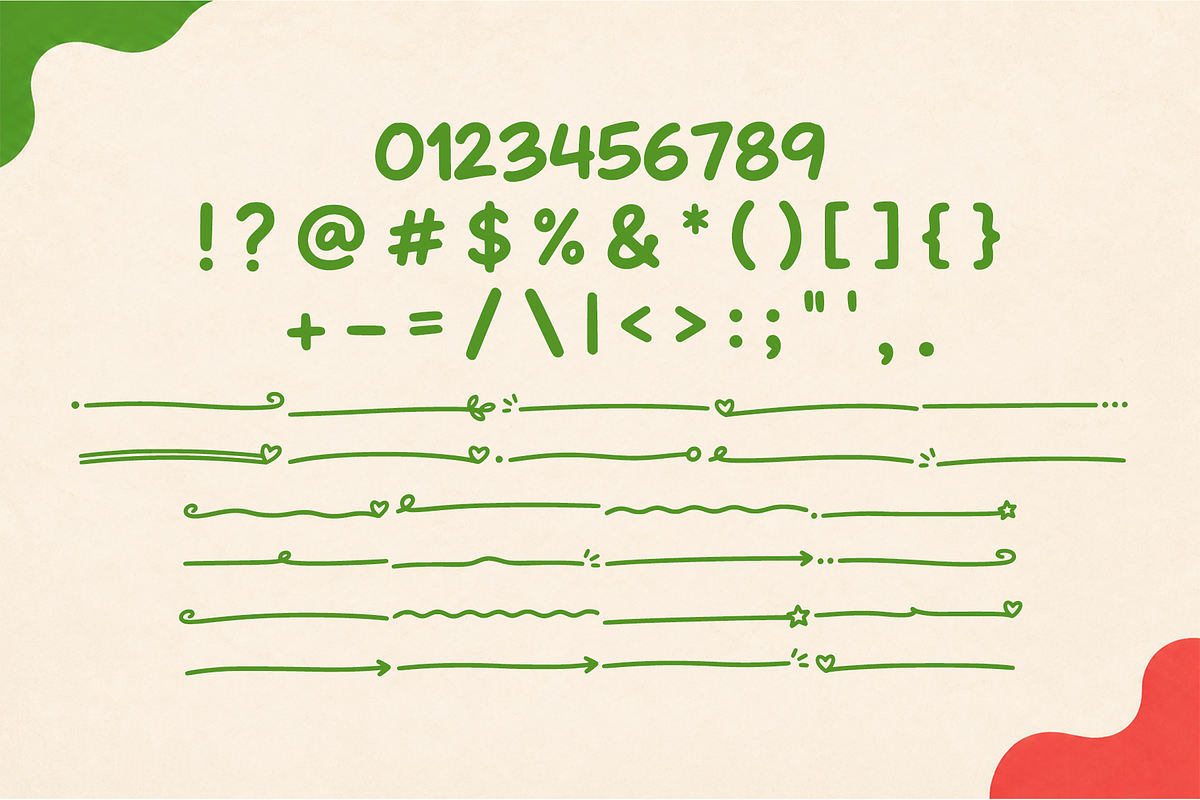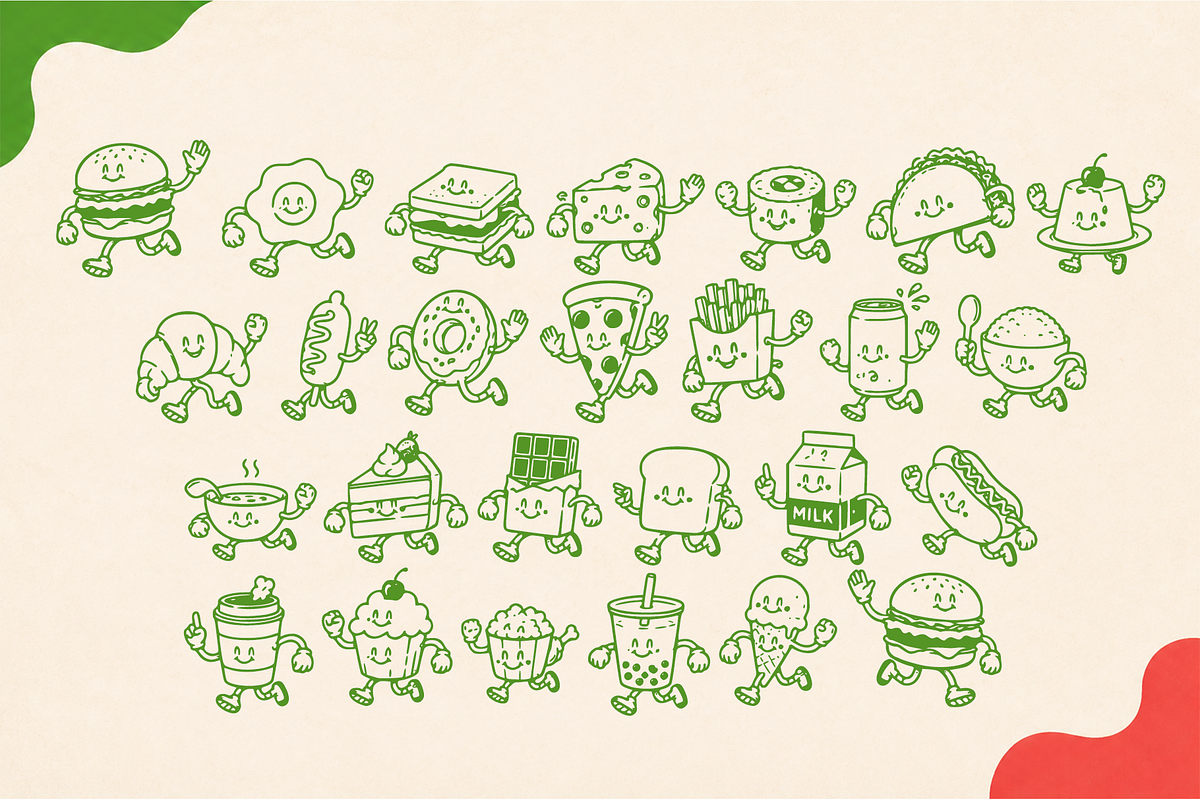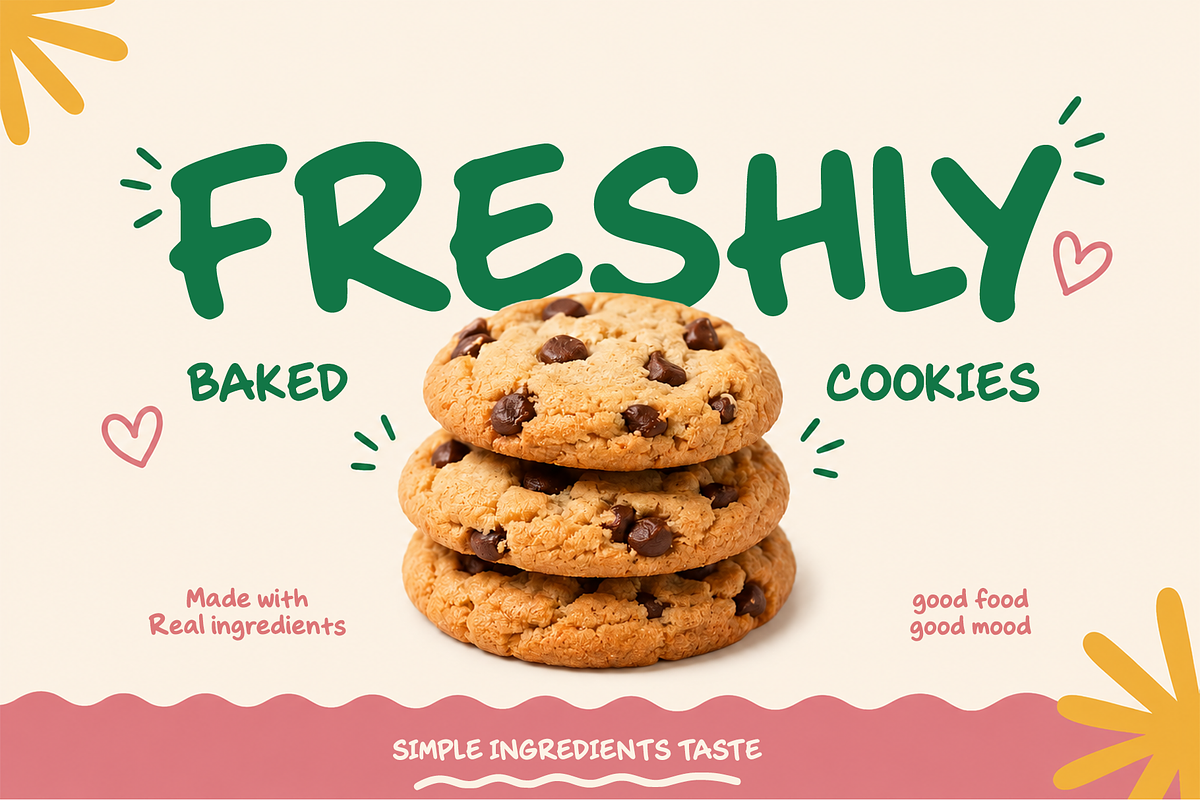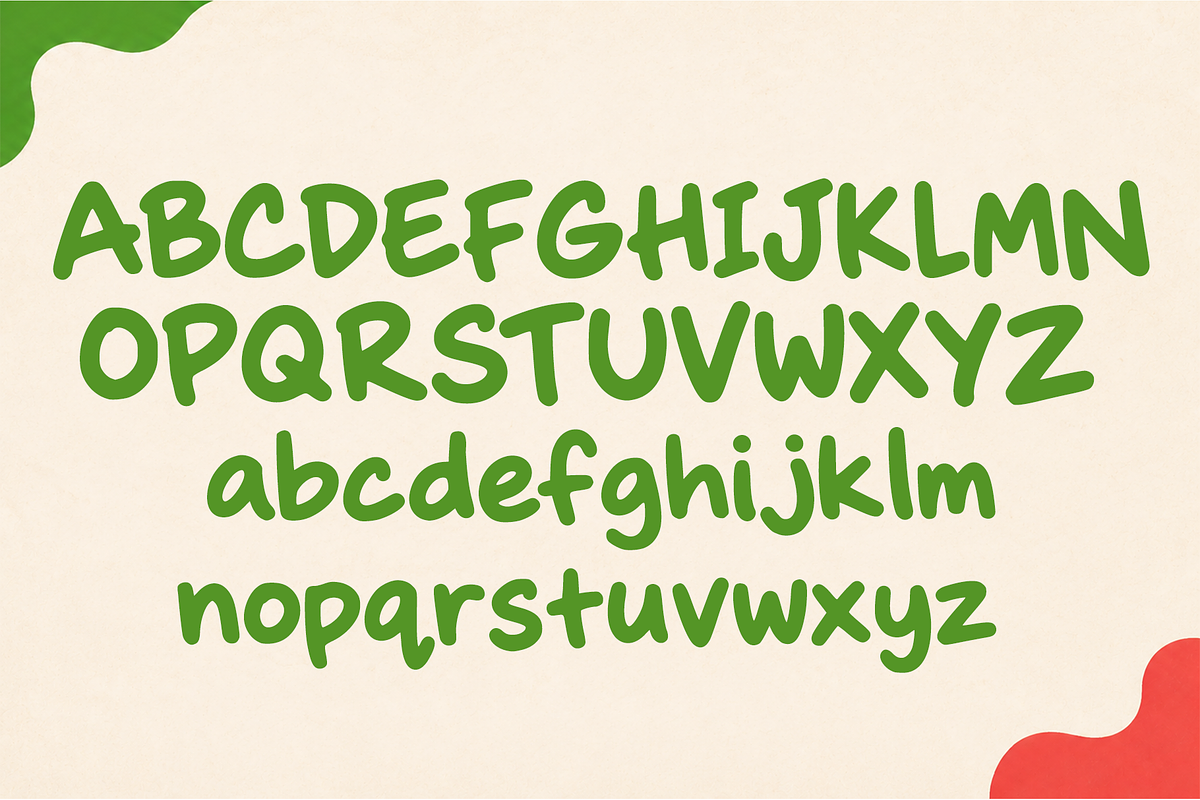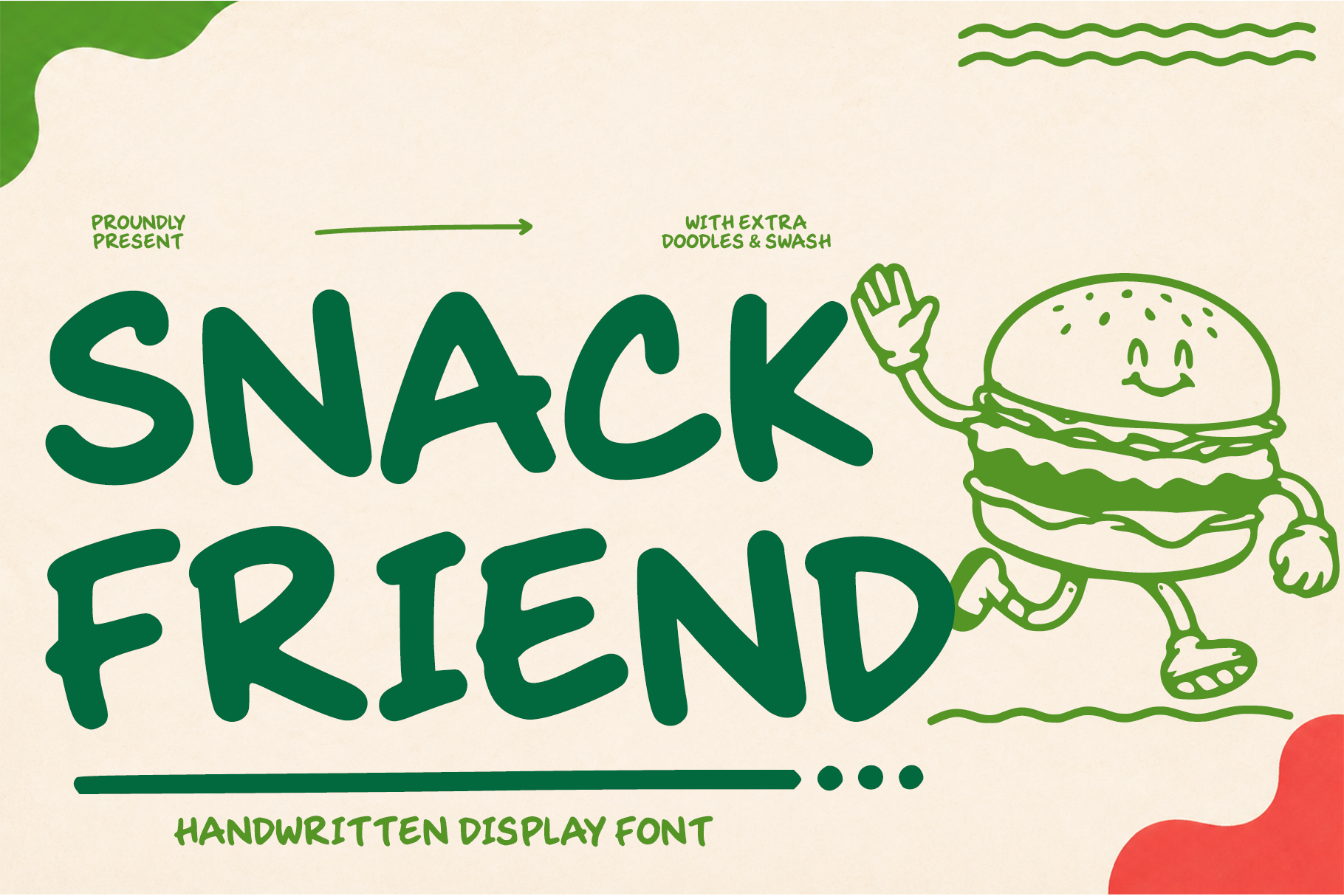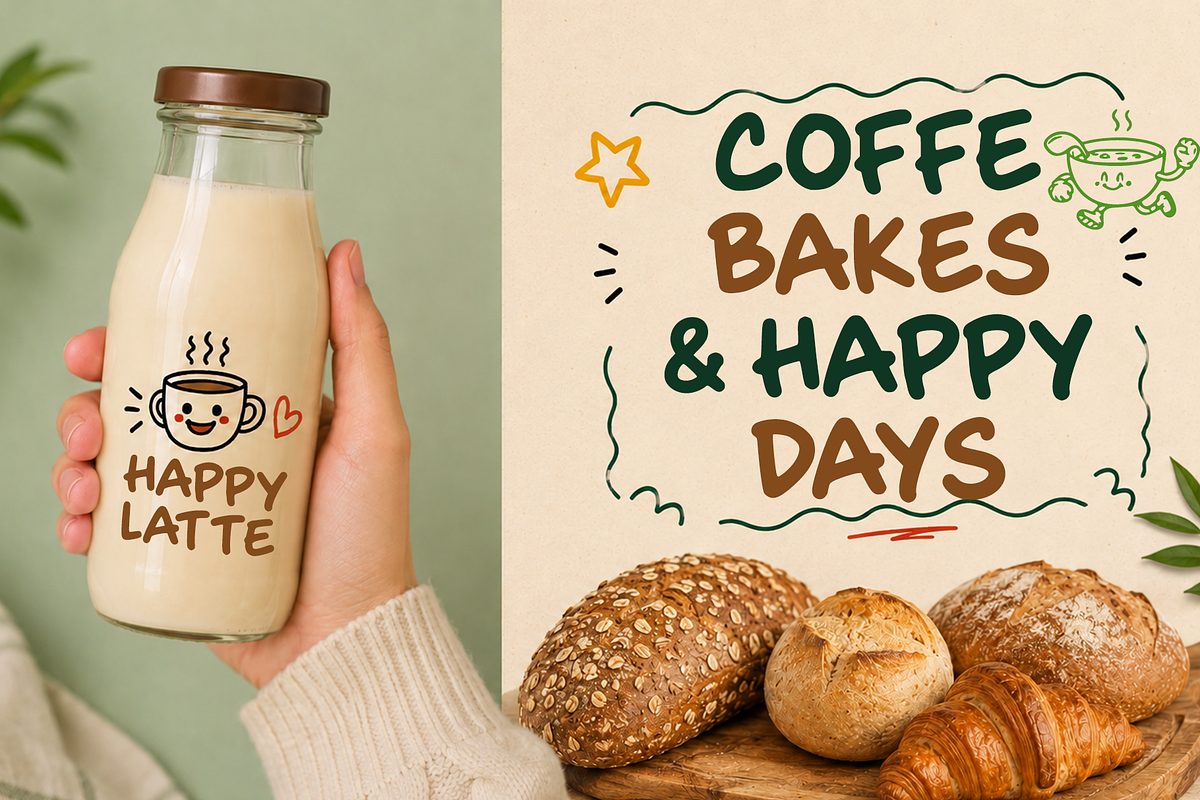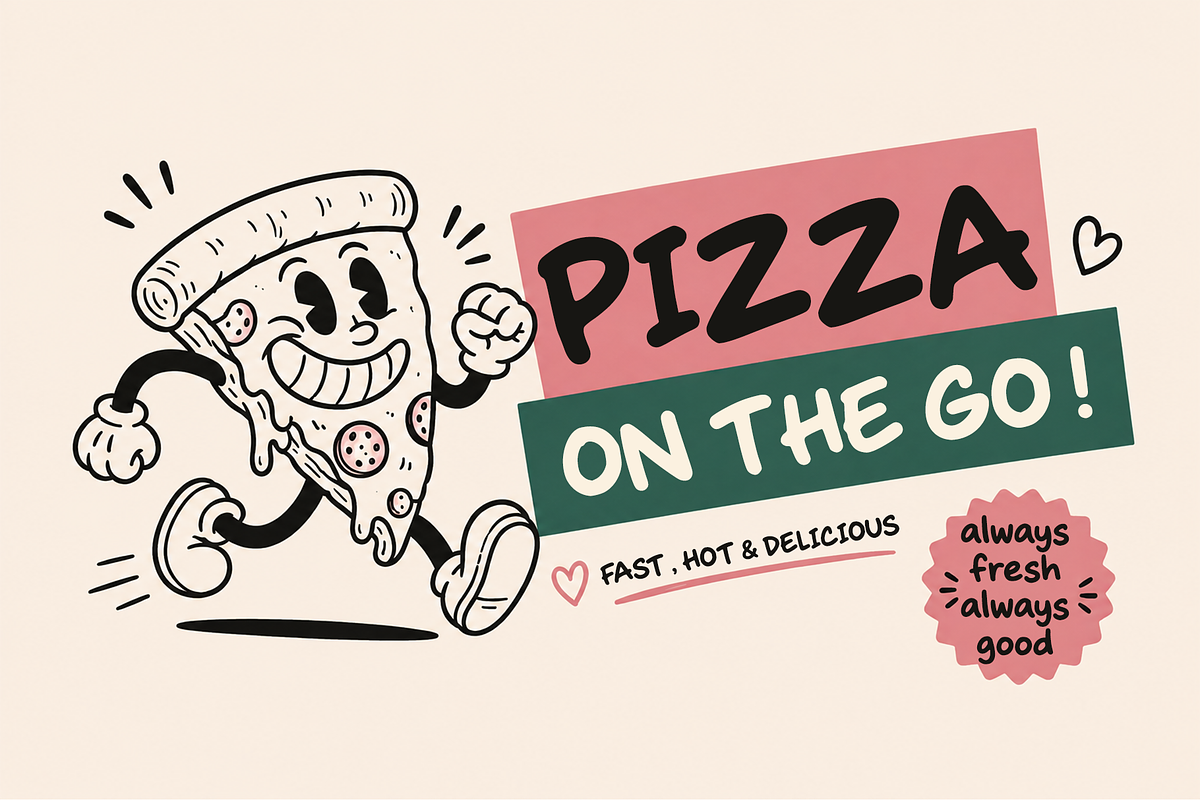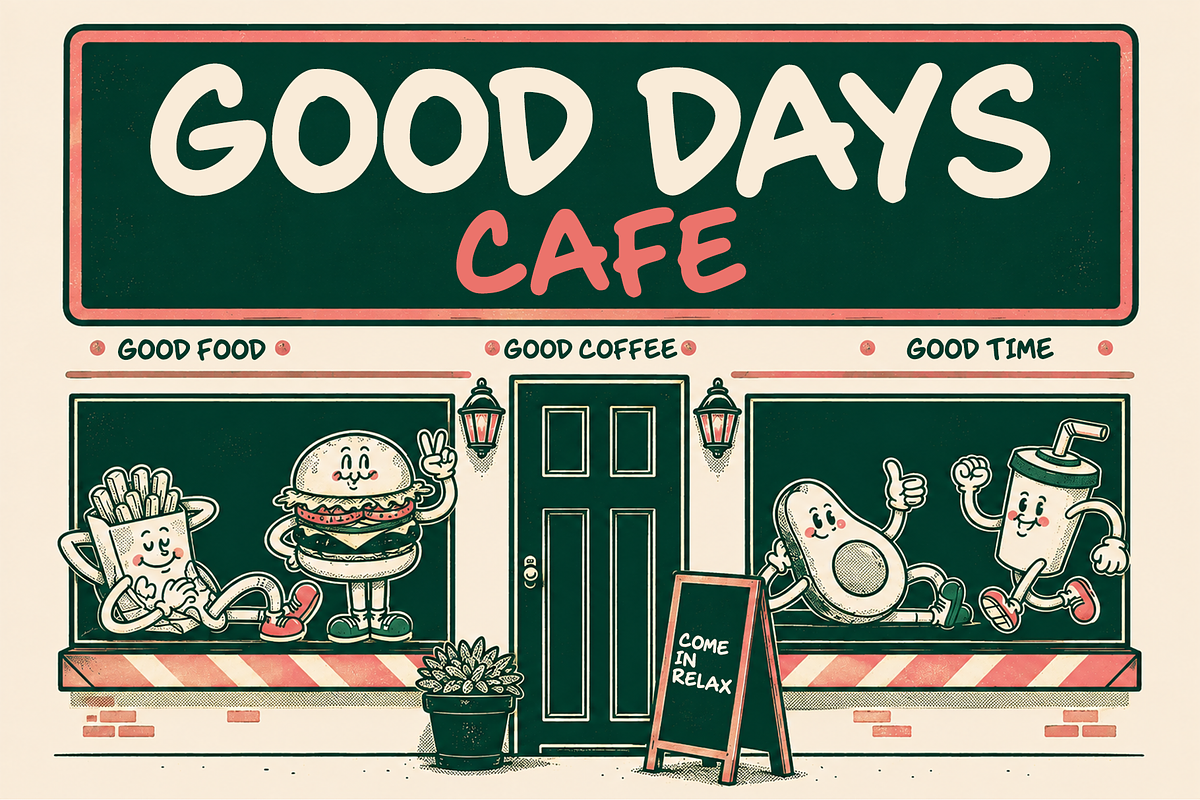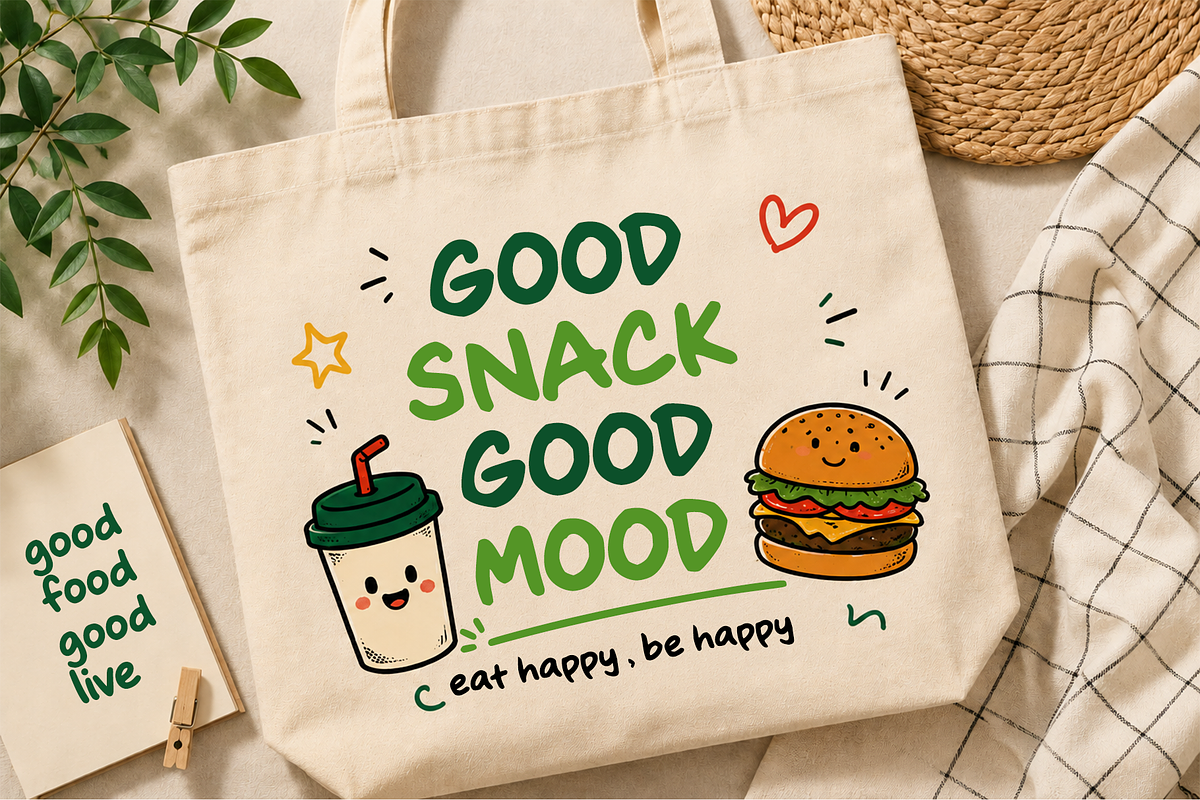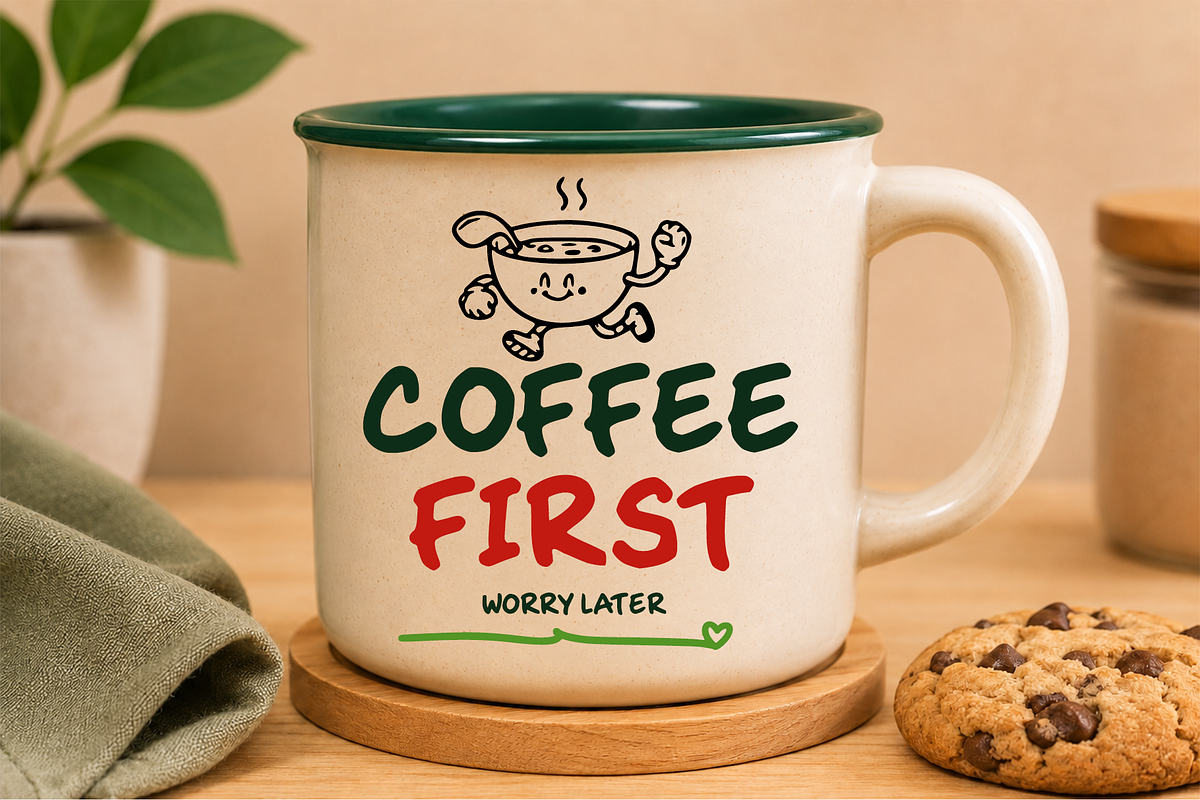
Snack Friend Playful font
Snack Friend is a playful handwritten display font with bold, chunky letterforms and a fun, friendly personality. Its organic shapes and slightly irregular strokes create a lively handmade feel that works beautifully for eye-catching designs. Perfect for food branding, packaging, café designs, restaurant menus, posters, stickers, labels, T-shirts, apparel, social media graphics, children’s designs, and playful advertising. The font also includes extra doodles and swashes to add more character and creative flexibility to every project.